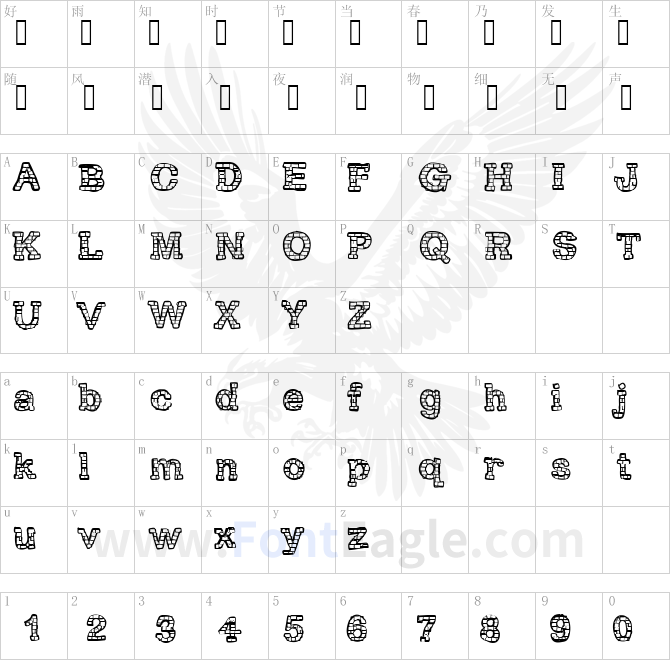
RH Brickhaus Proto VERTEBRA.ttf Font Image
- Font name:RH Brickhaus Proto
- Font Subfamily:VERTEBRA
- Font Subfamily ID:PatrickMcGrath&Robothaus: RH Brickhaus Proto VERTEBRA: 2013